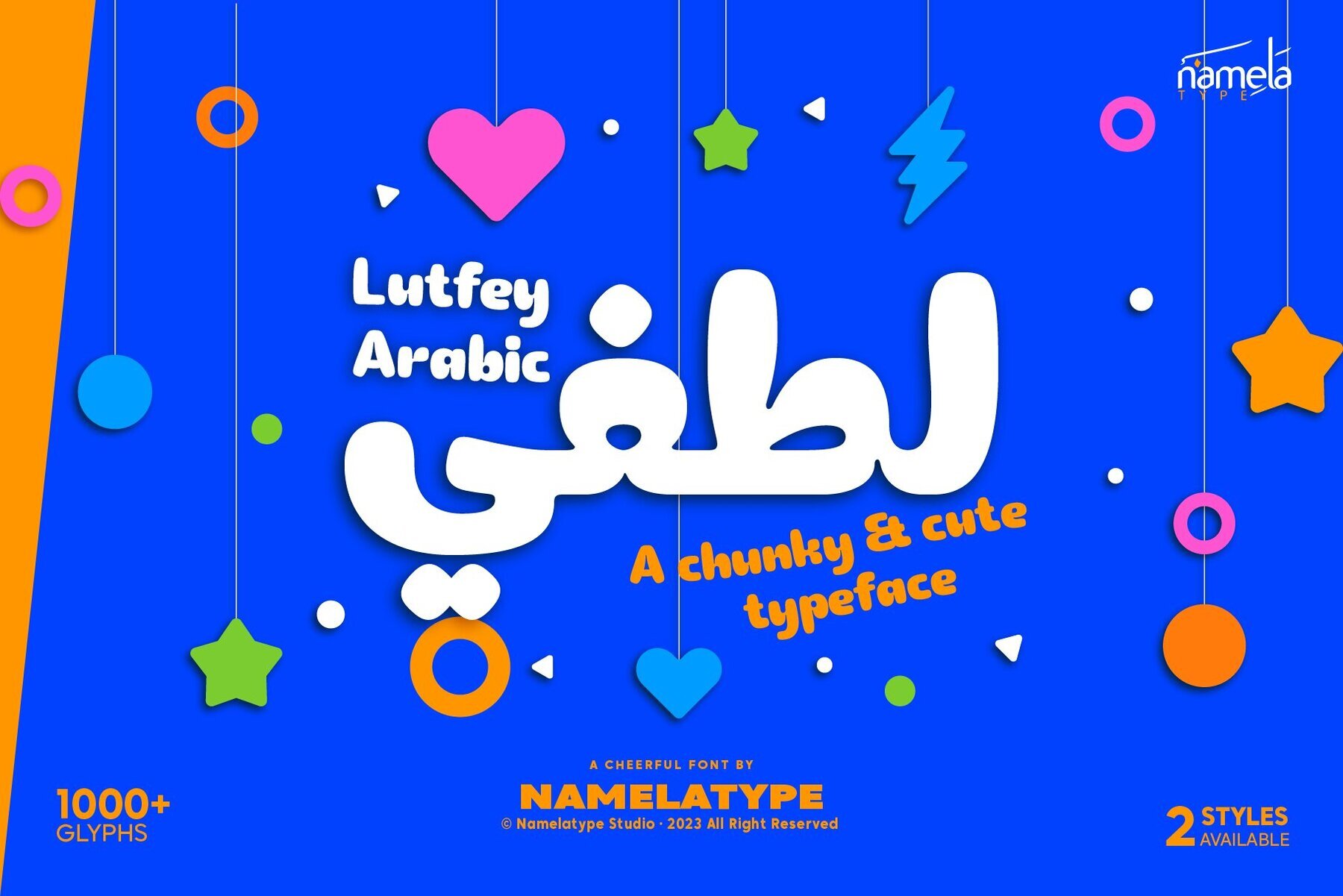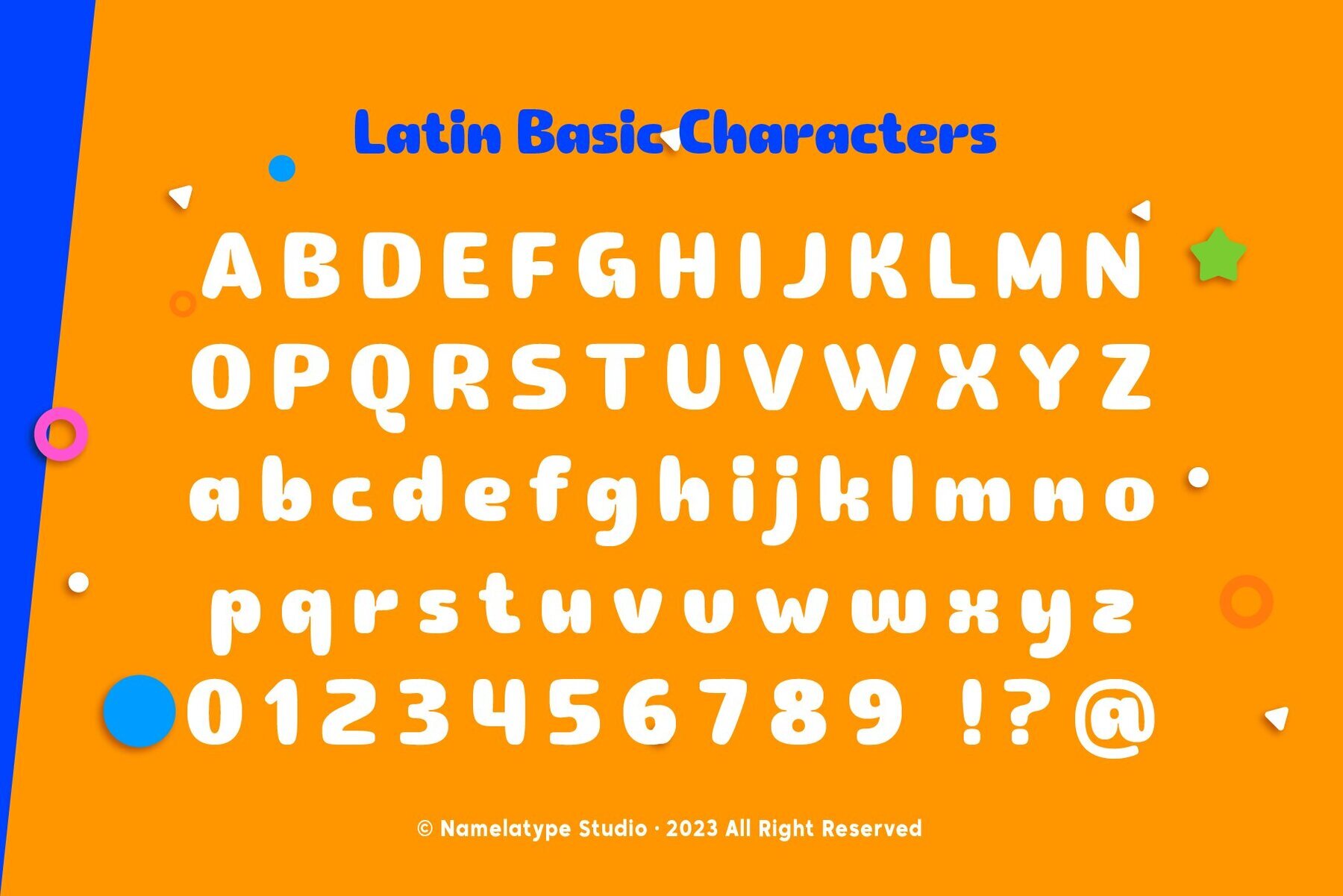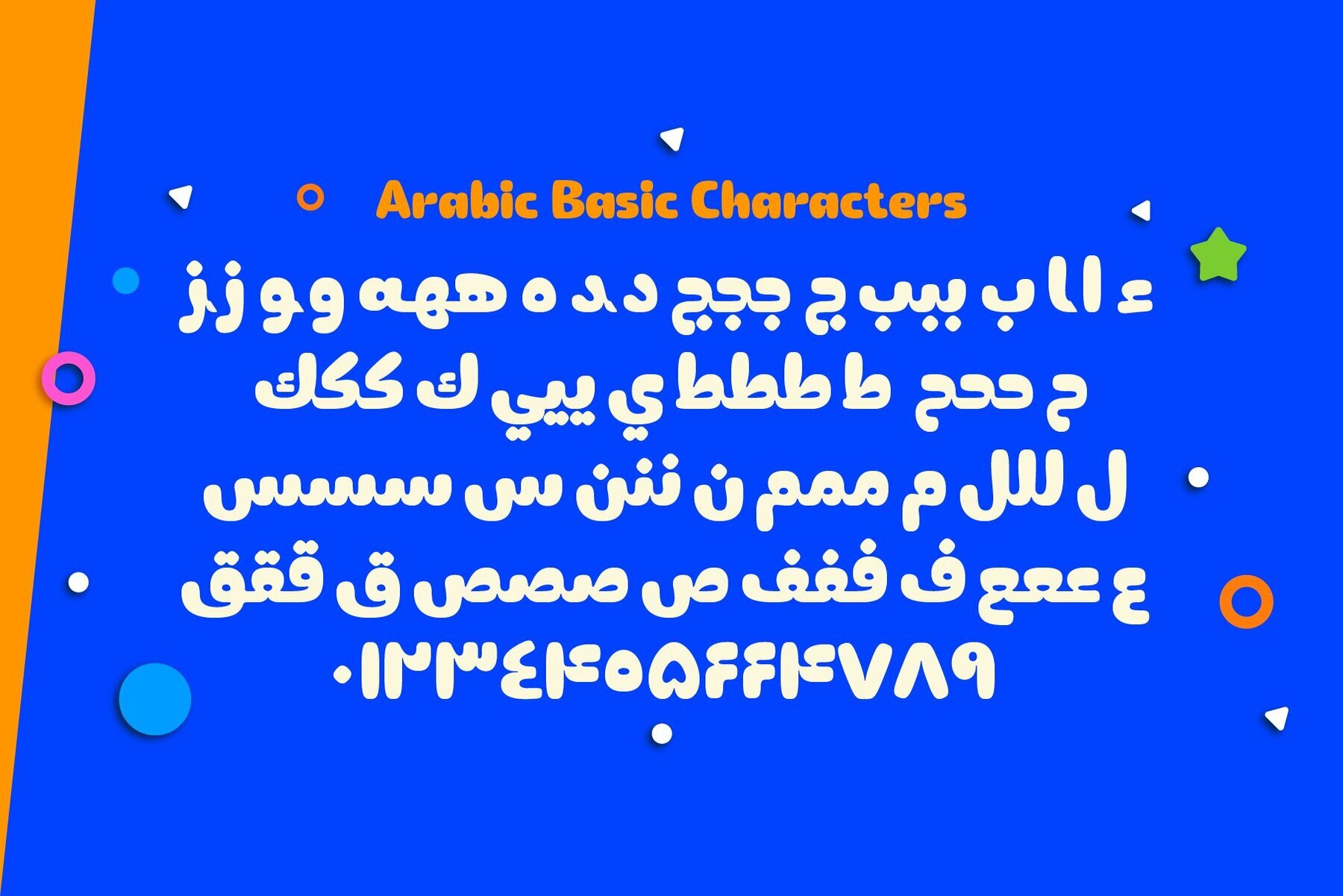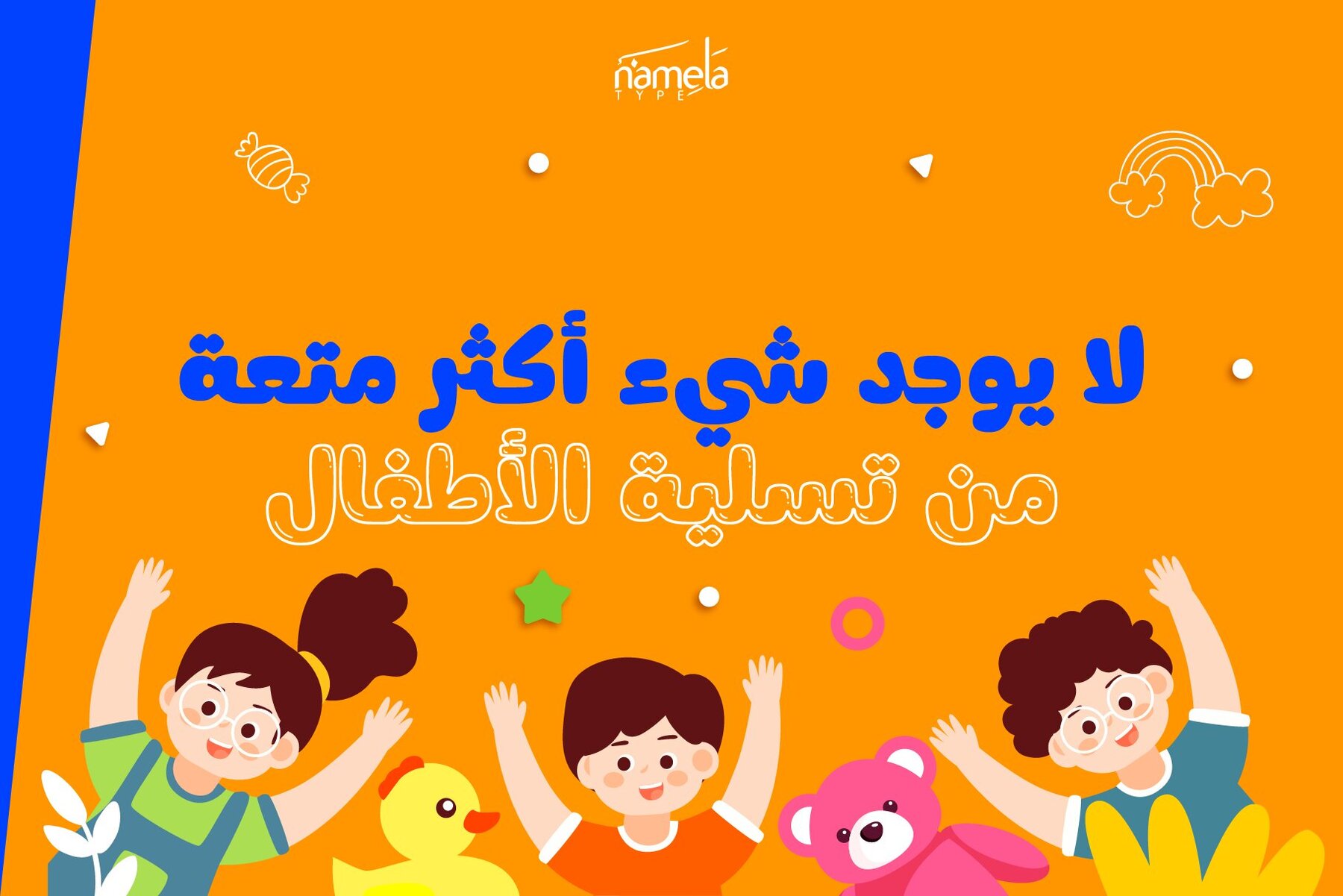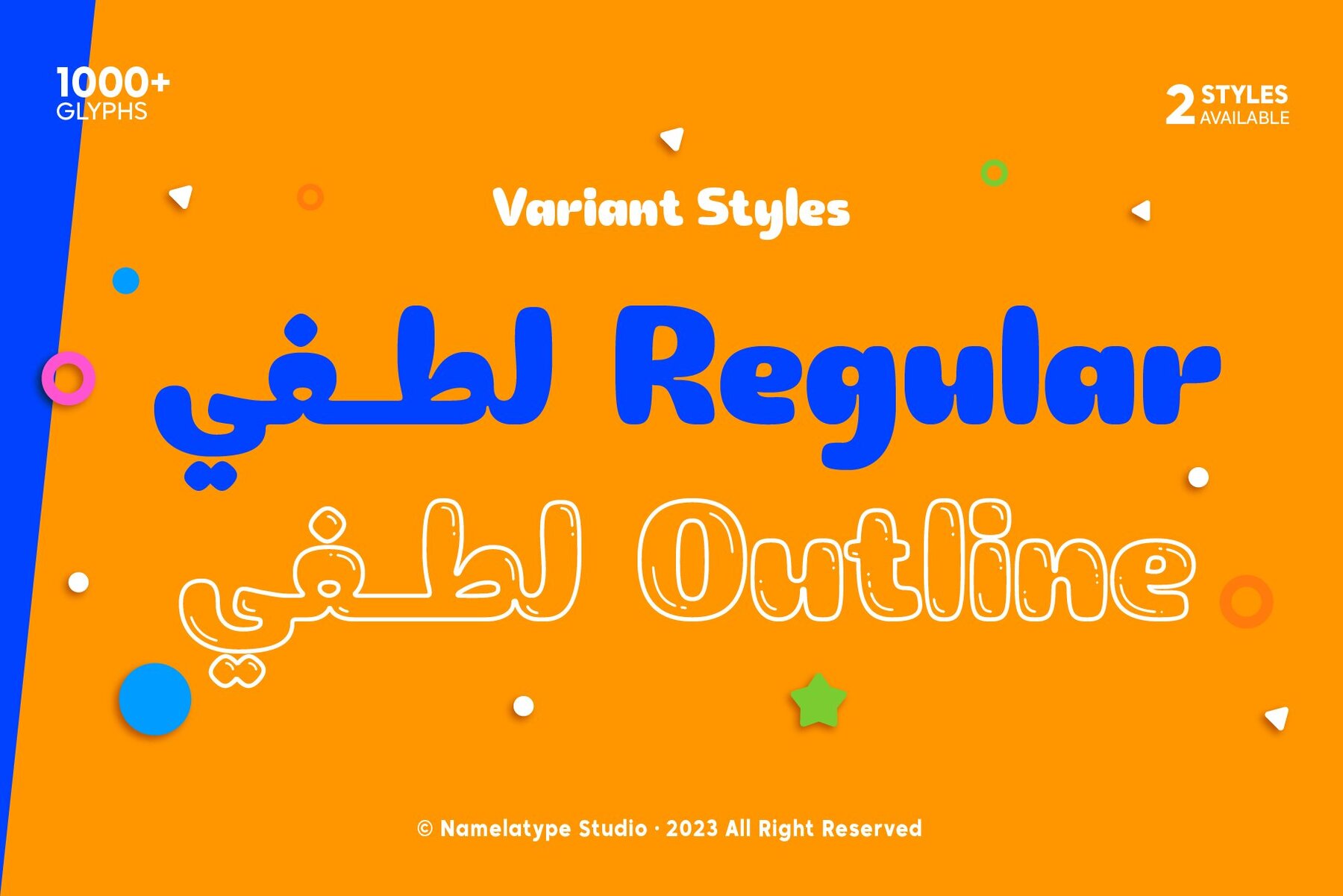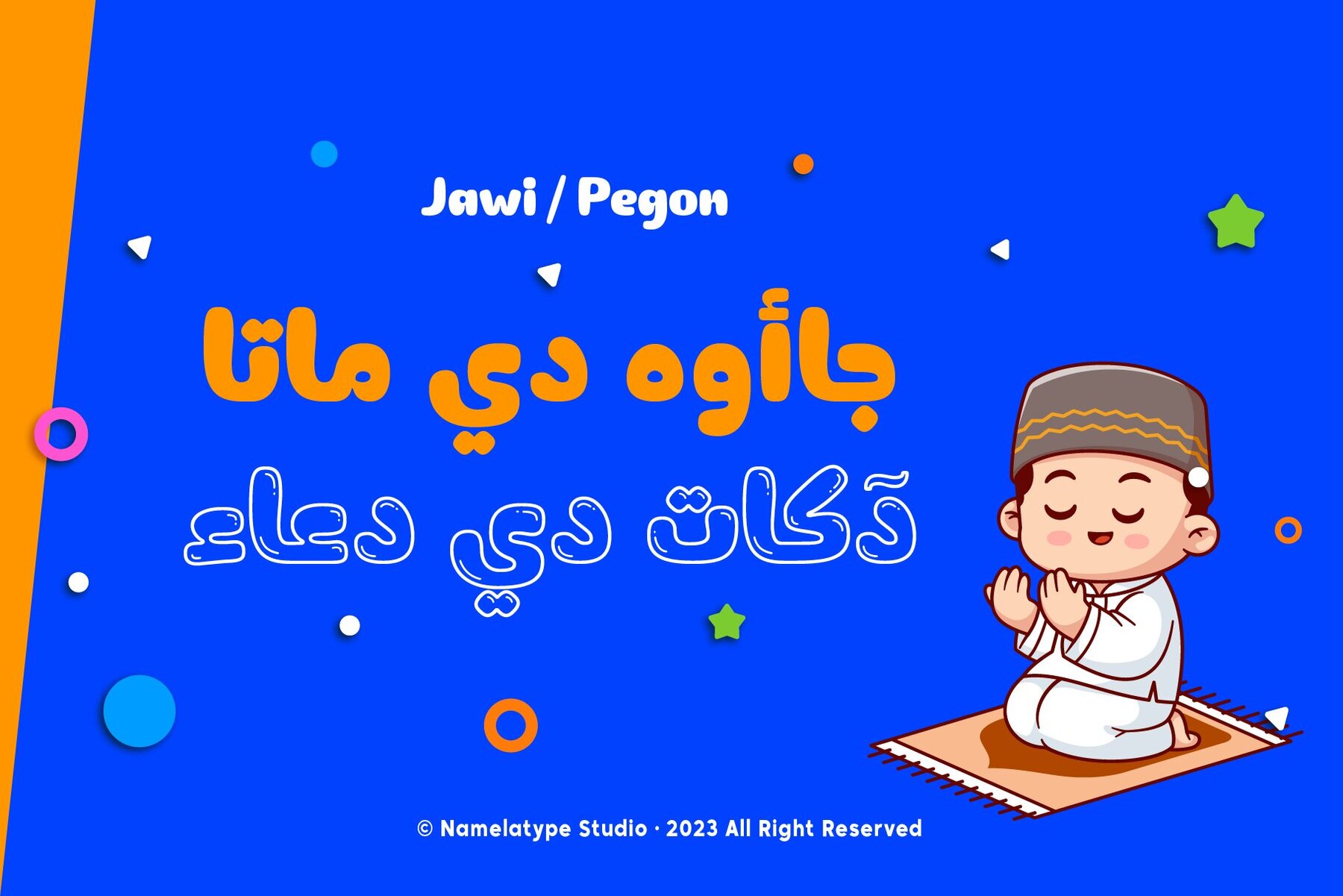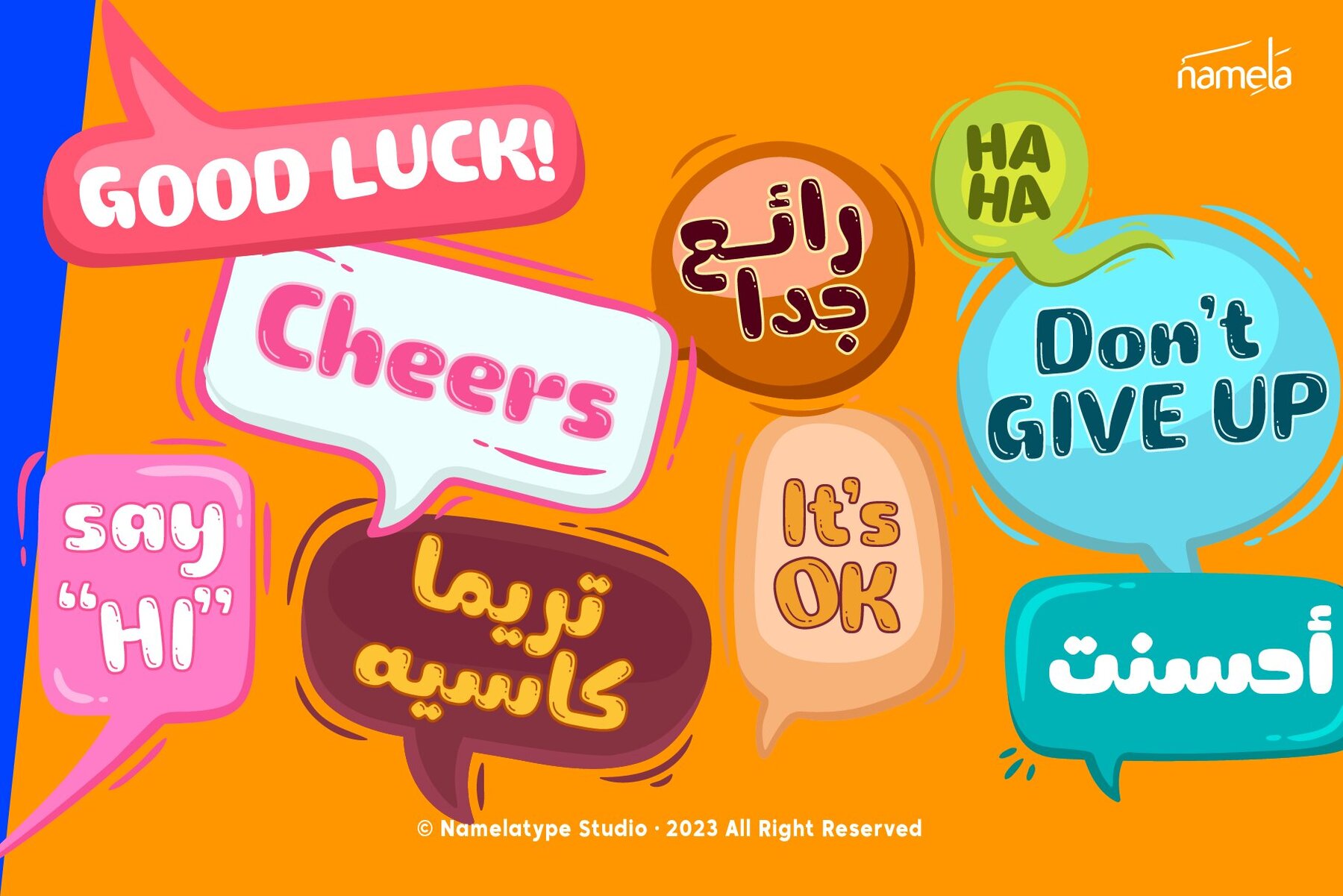
Lutfey Arabic Font
Lutfey Arabic Regular
Lutfey Arabic Outline
Lutfey Arabic Cute Font is a charming and endearing typeface, characterized by its bold yet gentle letterforms. Its chunky appearance exudes a sense of playfulness and firmness. The font boasts smooth, meticulously crafted lines, especially noticeable on the outer edges, creating a visually pleasing aesthetic. Additionally, subtle ink-trap details at every corner add a touch of sophistication. Lutfey Arabic Font seamlessly integrates Arabic, Urdu, Kurdish, Pegon, and Farsi glyphs into its repertoire. Making it a versatile choice for projects that require a delightful blend of scripts and a captivating design.